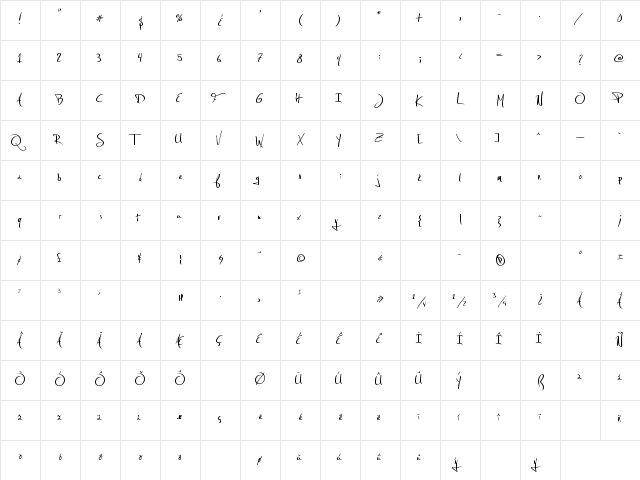
Jellyka's Handwriting, Back to 2008 Regular
| Designer | Jellyka Nerevan |
Design Context for Jellyka's Handwriting, Back to 2008 Typeface
Jellyka's Handwriting, Back to 2008 flows with the natural rhythm of handwritten lettering, making it ideal for designs that call for warmth and personal expression.
Font Pairing: Combine Jellyka's Handwriting, Back to 2008 with a simple geometric sans for maximum contrast — the tension between flowing curves and clean structure is a classic typographic pairing.
Pro Tip: Pair Jellyka's Handwriting, Back to 2008 with a clean sans-serif for supporting text. The contrast between fluid script and geometric structure creates an elegant typographic hierarchy.